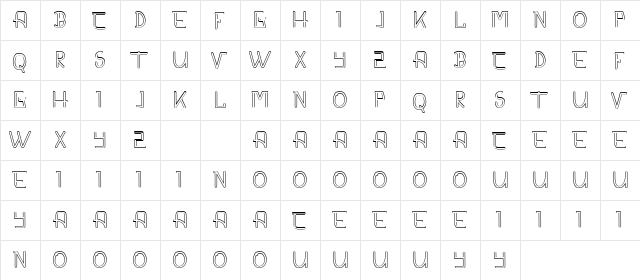
CALDERDALE DEMO Outline
Design Context for CALDERDALE DEMO Typeface
CALDERDALE DEMO is built around its visual character rather than neutral utility — its distinctive forms are designed to make an impression at display sizes.
Font Pairing: Pair with a clean neutral sans-serif for body copy to let CALDERDALE DEMO's character lead without overwhelming the composition.
Pro Tip: Treat CALDERDALE DEMO as the centrepiece of your typographic hierarchy. One strong heading set in a decorative face can carry an entire layout.